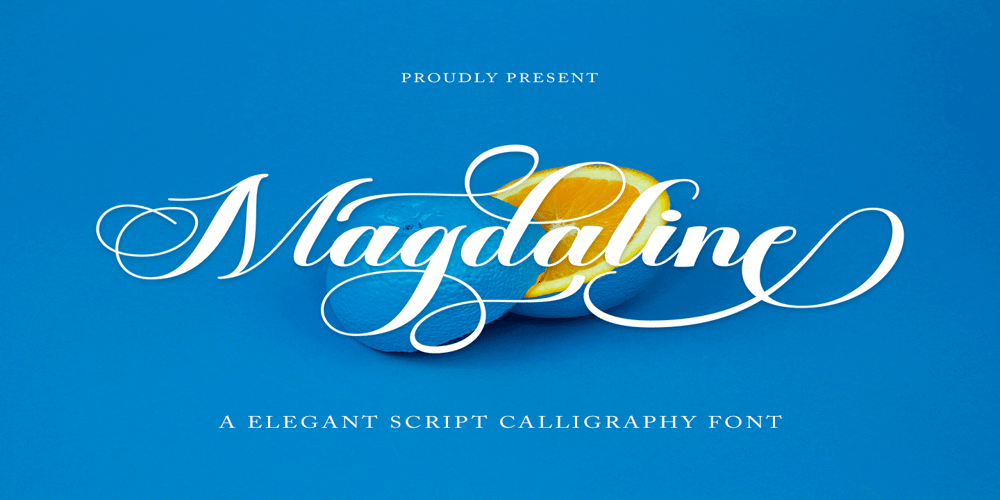
Magdaline Script
Magdaline Script font
Magdaline Script Font Family was designed by Has Rizal and published by Hrz Studio. Magdaline Script contains 1 styles and family package options. Magdaline Script is new quality calligraphy font. High-quality script fonts come with modern and vintage touches in them. Inspired by a mixture of copper calligraphy with handlettering style. OpenType feature with Stylistic Alternatives, Swash, Ligatures, Stylistic sets. It allows you to mix and match letter pairs to fit your design, and also comes with modern ornaments to make this font look elegant and perfect.Magdaline Script is attractive like a smooth, clean, feminine, sensual, glamorous, simple and very easy to read. The classic style is perfect to be applied in various formal forms such as invitations, labels, menus, logos, fashion, make up, stationery, letterpress, romantic novels, books, greeting / wedding cards, packaging, labels, and more.Magdaline Script also supports in pragram, Adobe Illustrator, Adobe Photoshop, Adobe InDesign, Corel Draw X version, Microsoft Word.Language Support : Albanian, Basque, Breton, Chamorro, Danish, Dutch, English, Faroese, Finnish, French, Frisian, Galician, German, Icelandic, Italian, Malagasy, Norwegian, Portuguese, Spanish, Swedish.